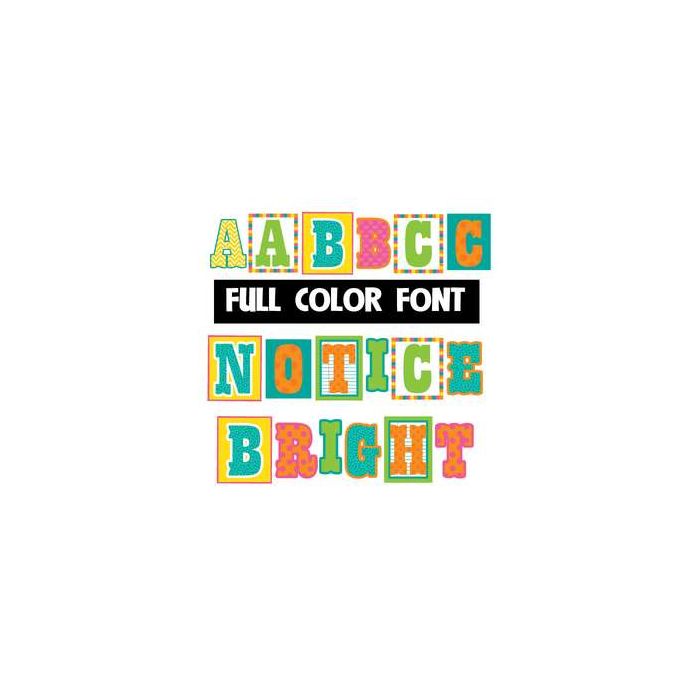
This full-color font features a mishmash of letters and colors. This font works best for titles, displays, posters and more. Please note color fonts will show as black in non compatible programs. This font type is compatible with Silhouette Studio.